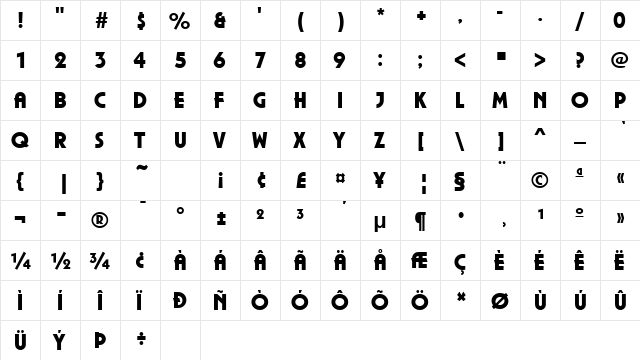
Piazza Bold
Design Context for Piazza Typeface
Piazza takes a measured approach to typography — its balanced proportions and neutral character make it a reliable workhorse for both digital and print work. Its bold stroke weight gives it real presence on the page.